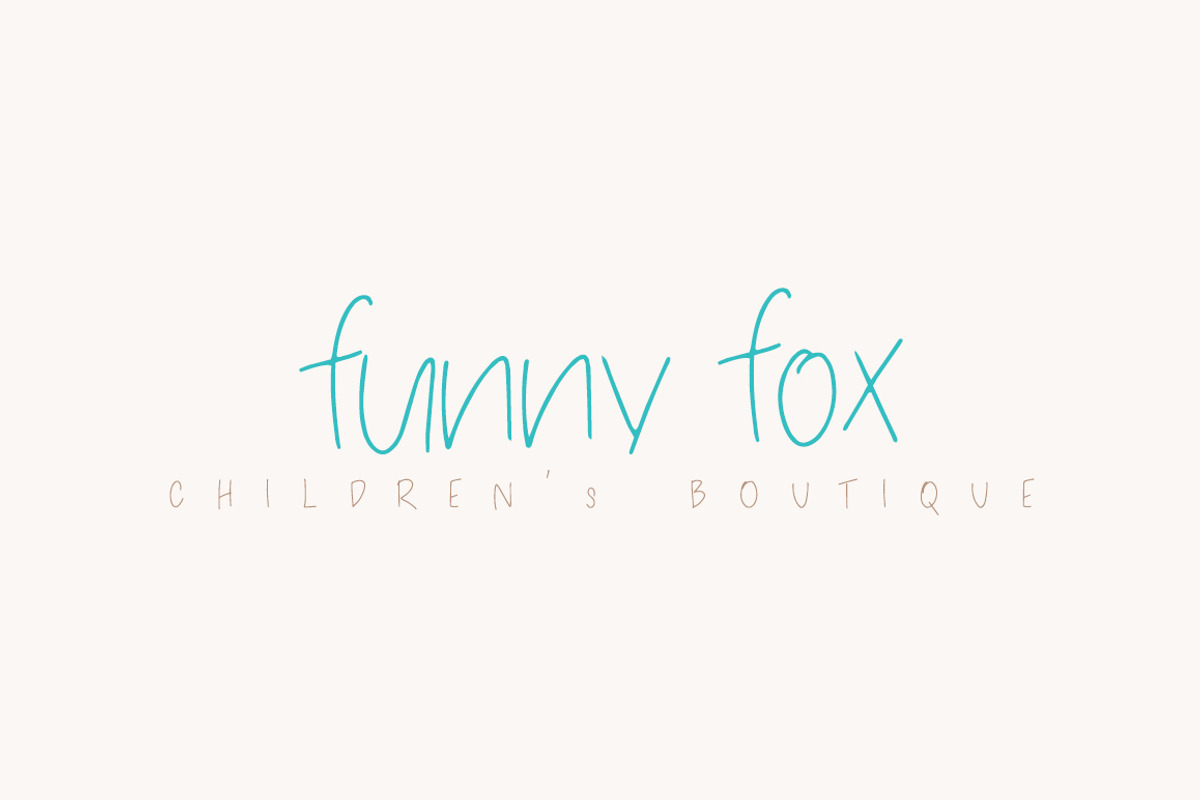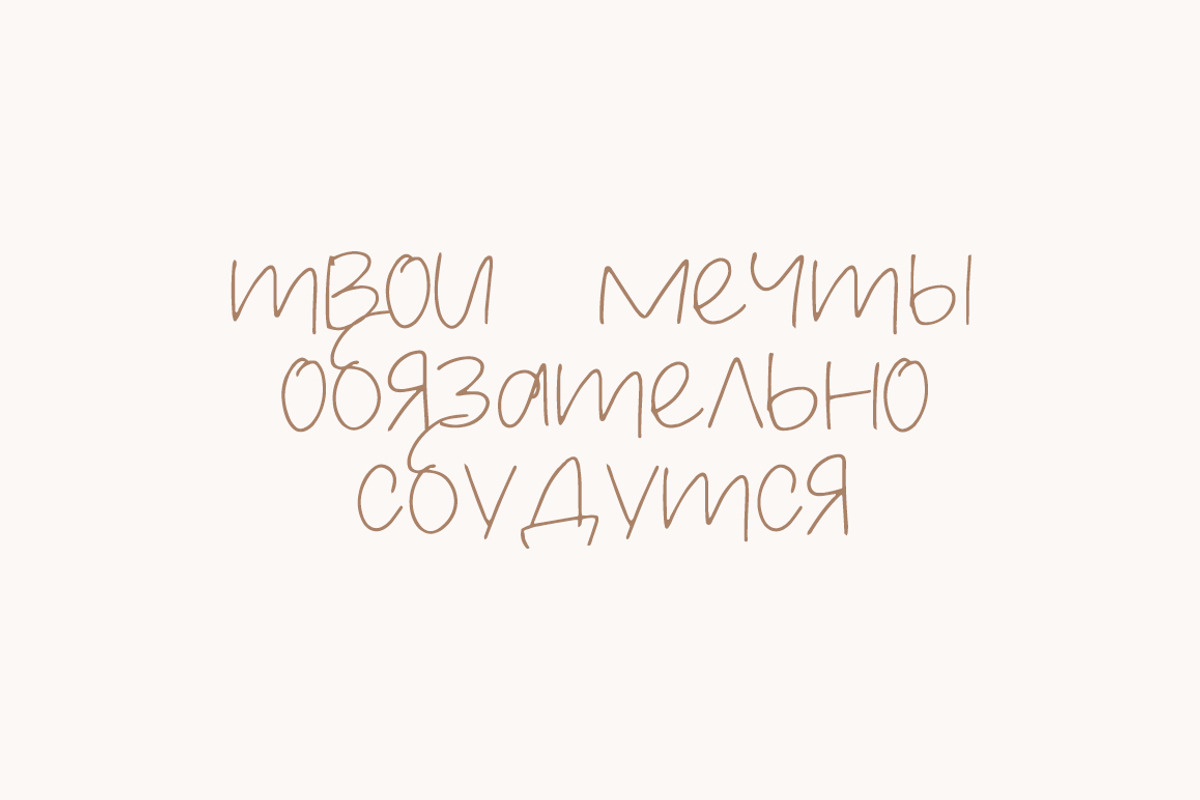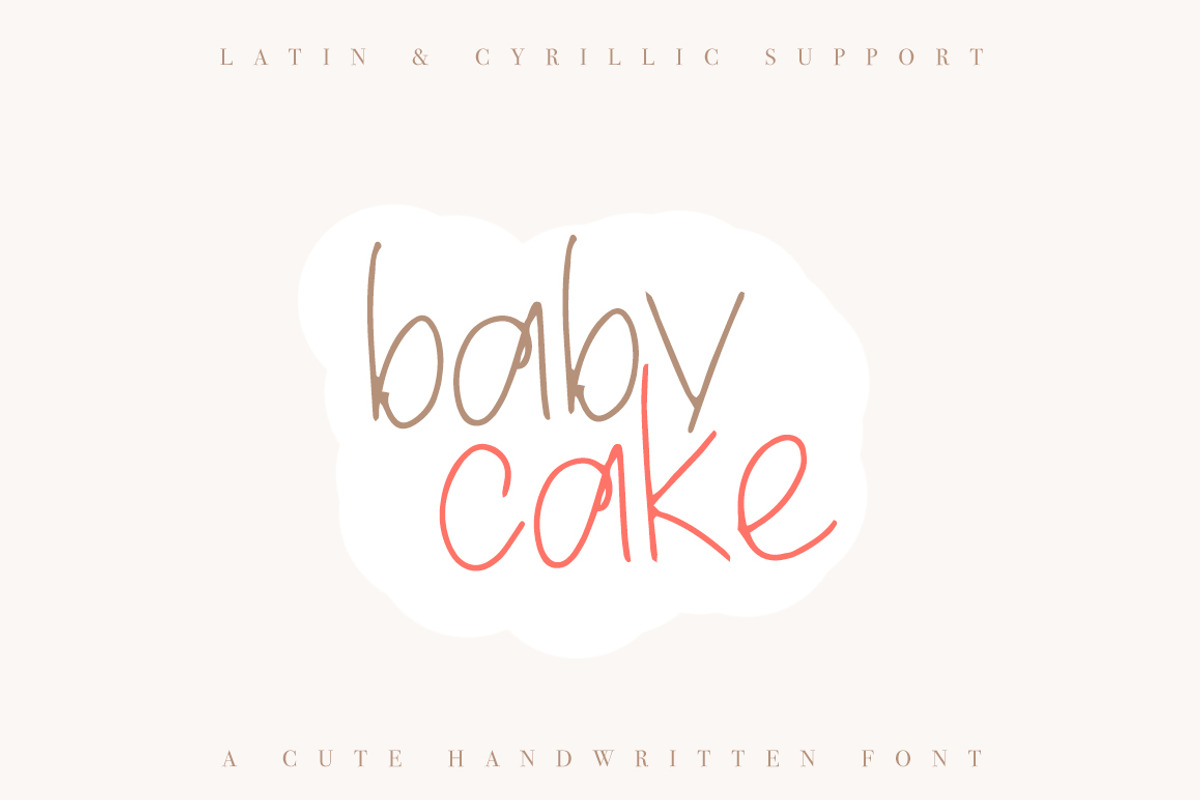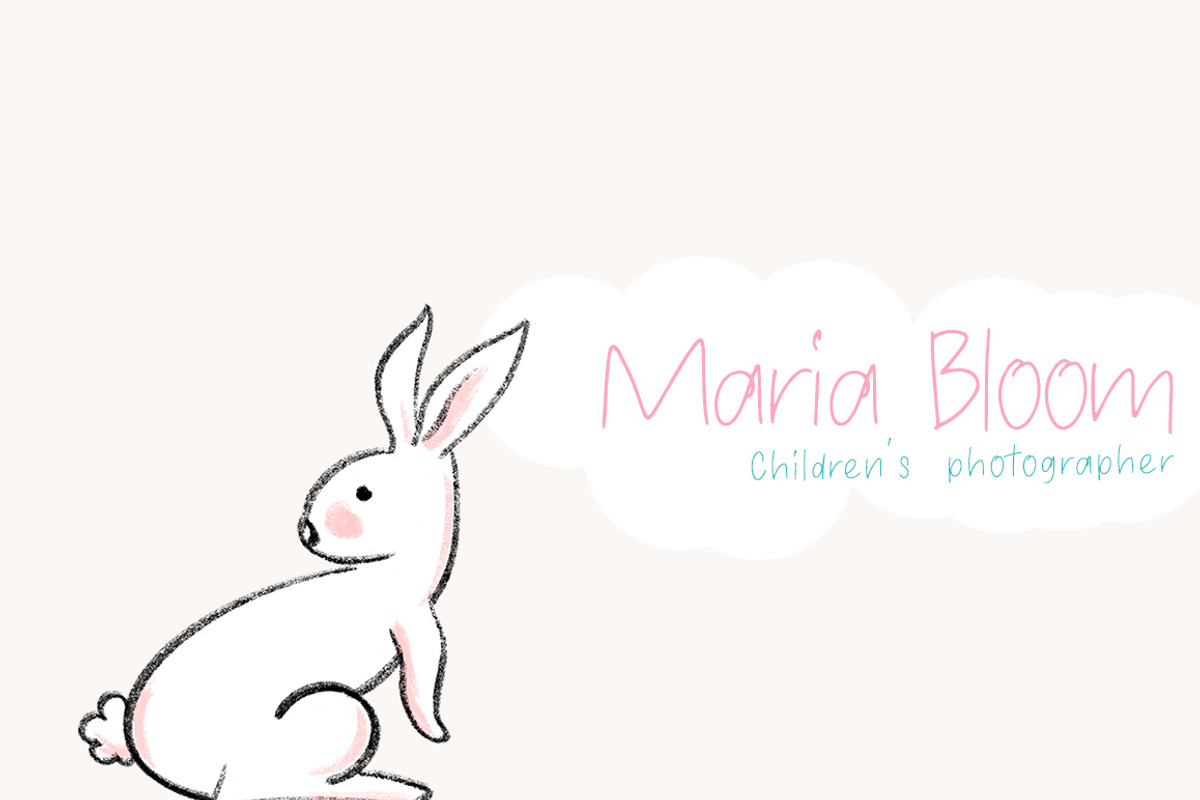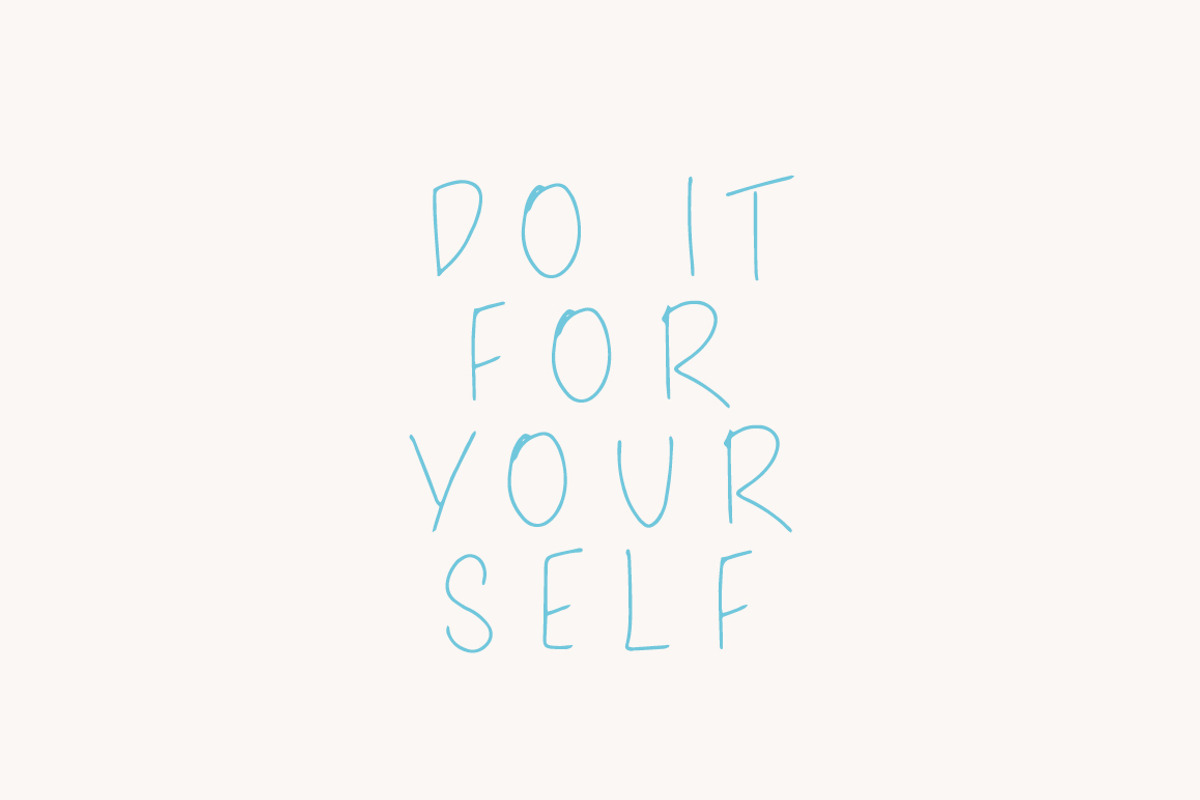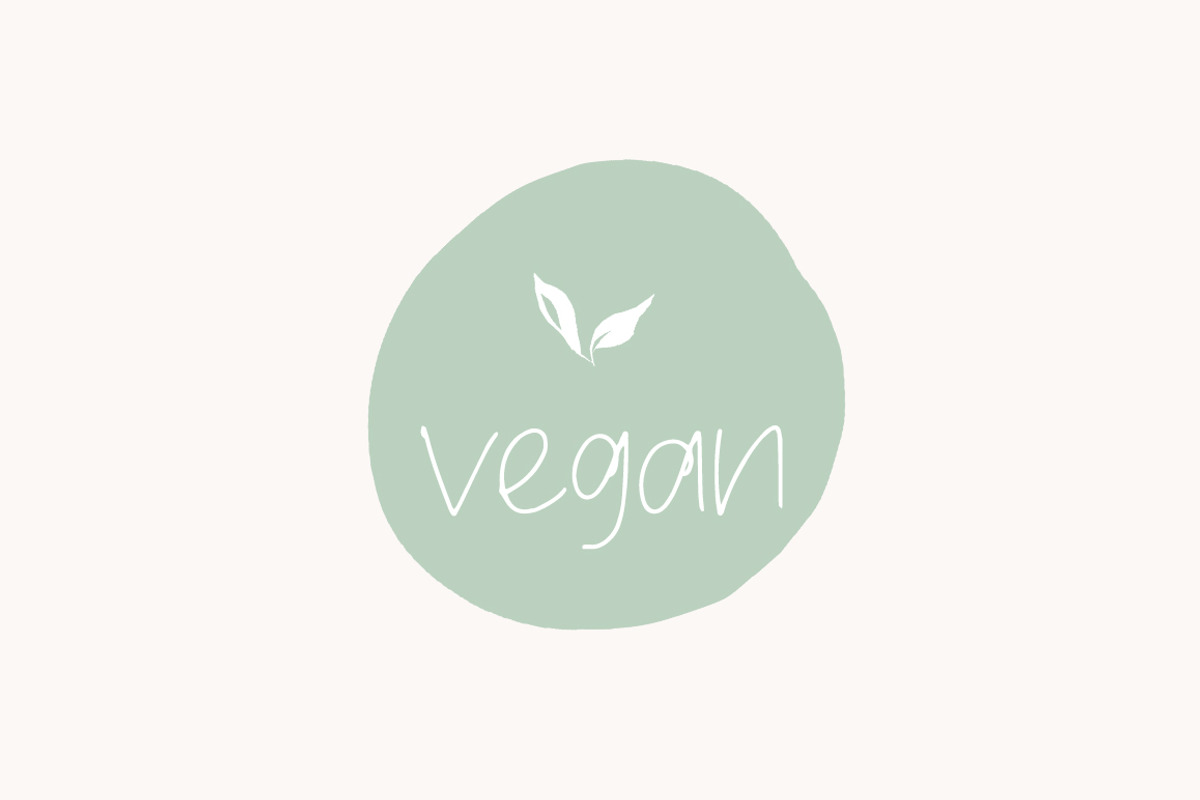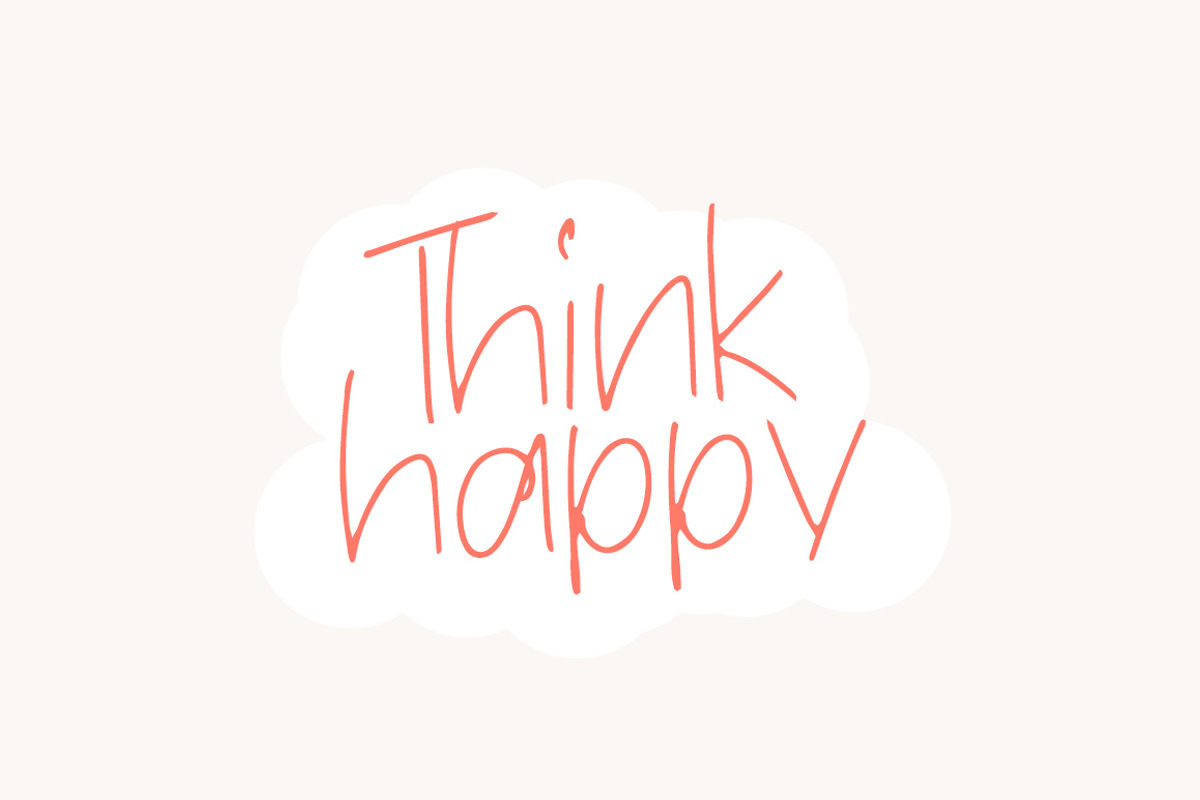
Baby Cake - Latin & Cyrillic
Baby Cake is sweet and playful, but also Crafty. This versatile script font has a wide range of applications ranging from greeting cards to kids’ crafts, and is guaranteed to add a sweet touch to your next design.
- CYRILLIC SUPPORT
- Standard glyphs, numbers, punctuation.